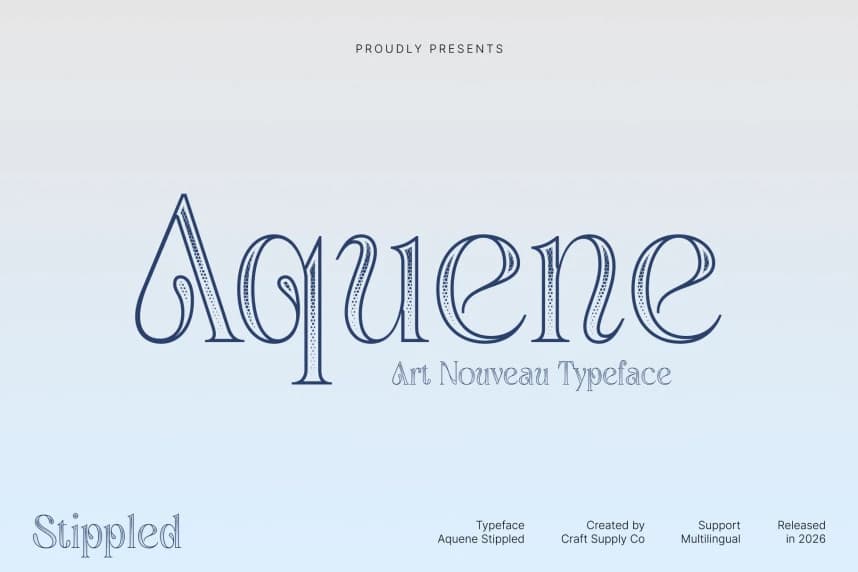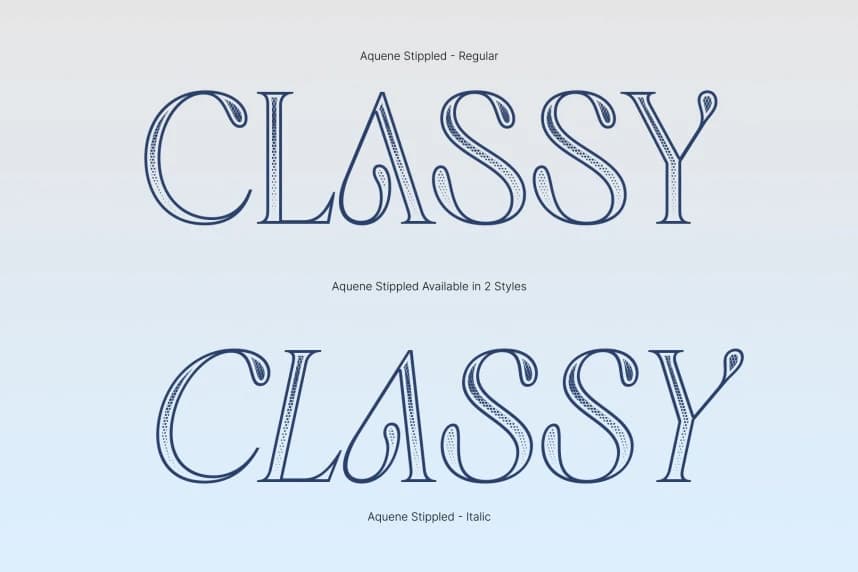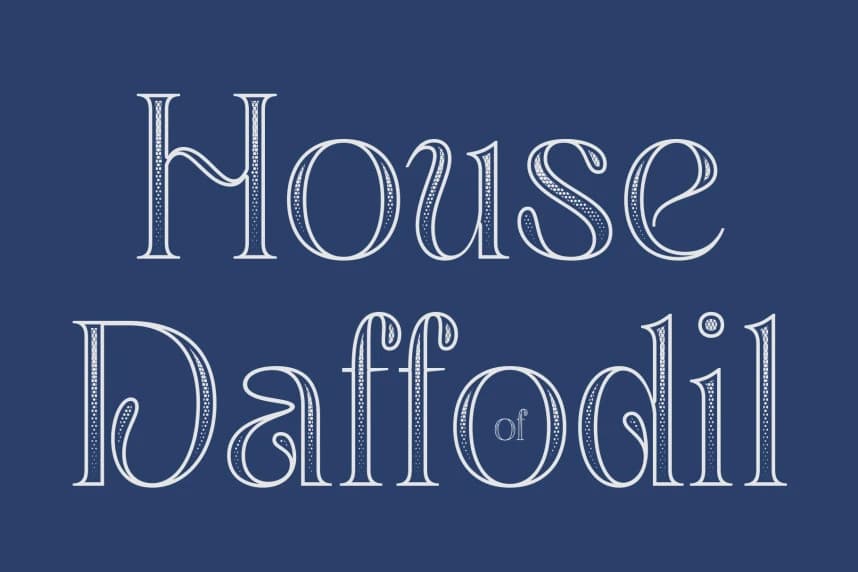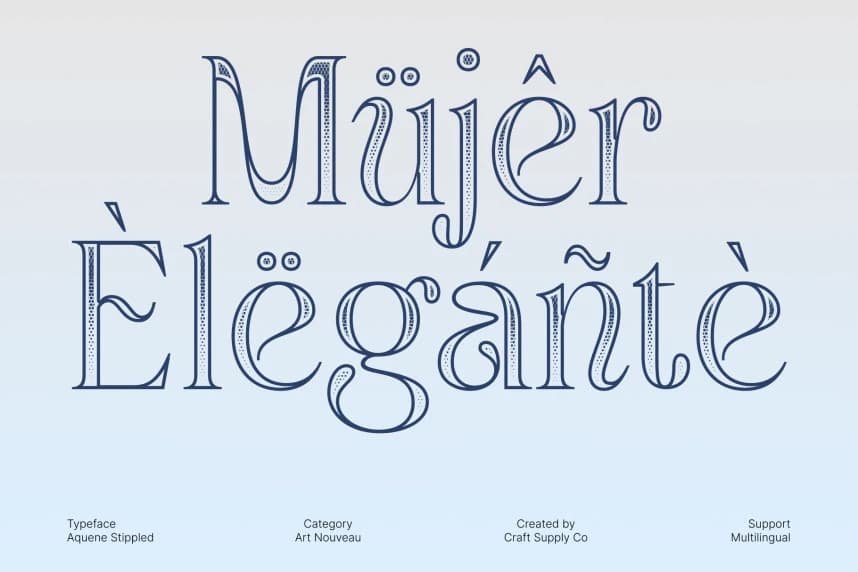
Aquene Stippled Font
Aquene Stippled Font – Display Serif Font with Artistic Flow Distinctive Display Serif with Stippled Elegance. This is a meticulously crafted display serif font designed to captivate attention through its graceful flow and refined structure.